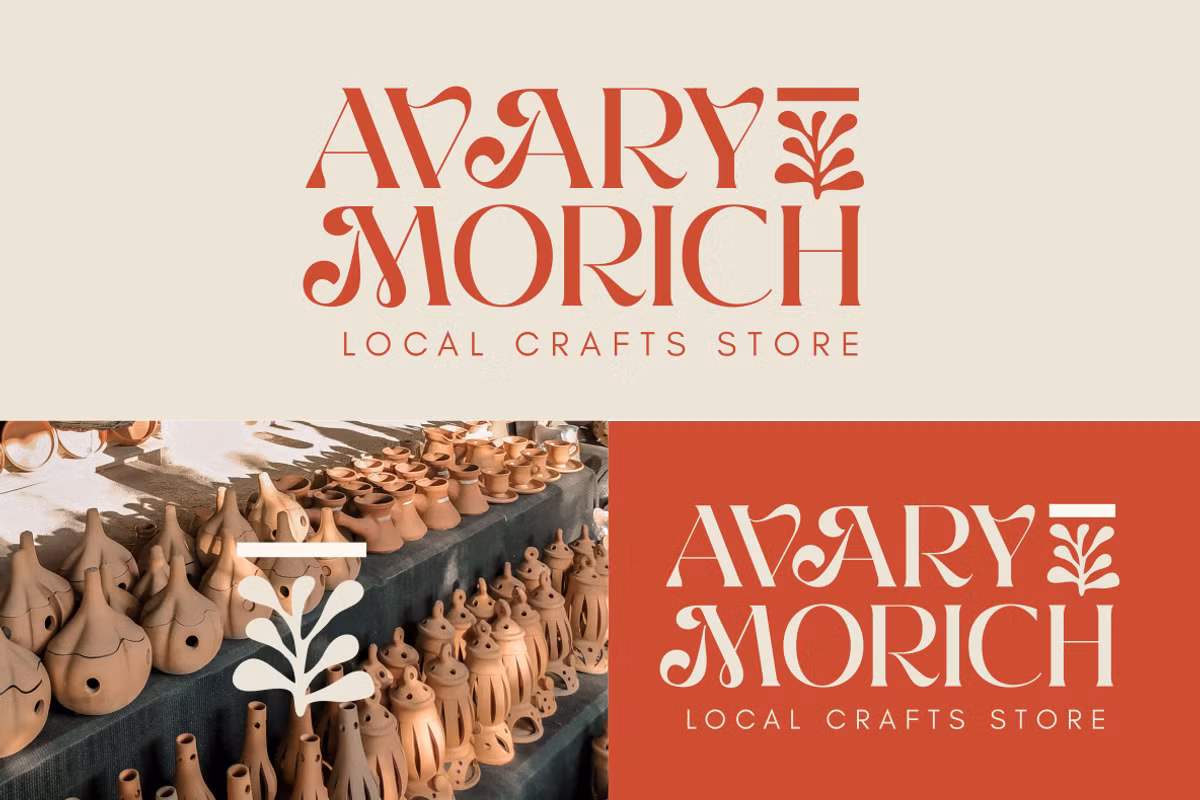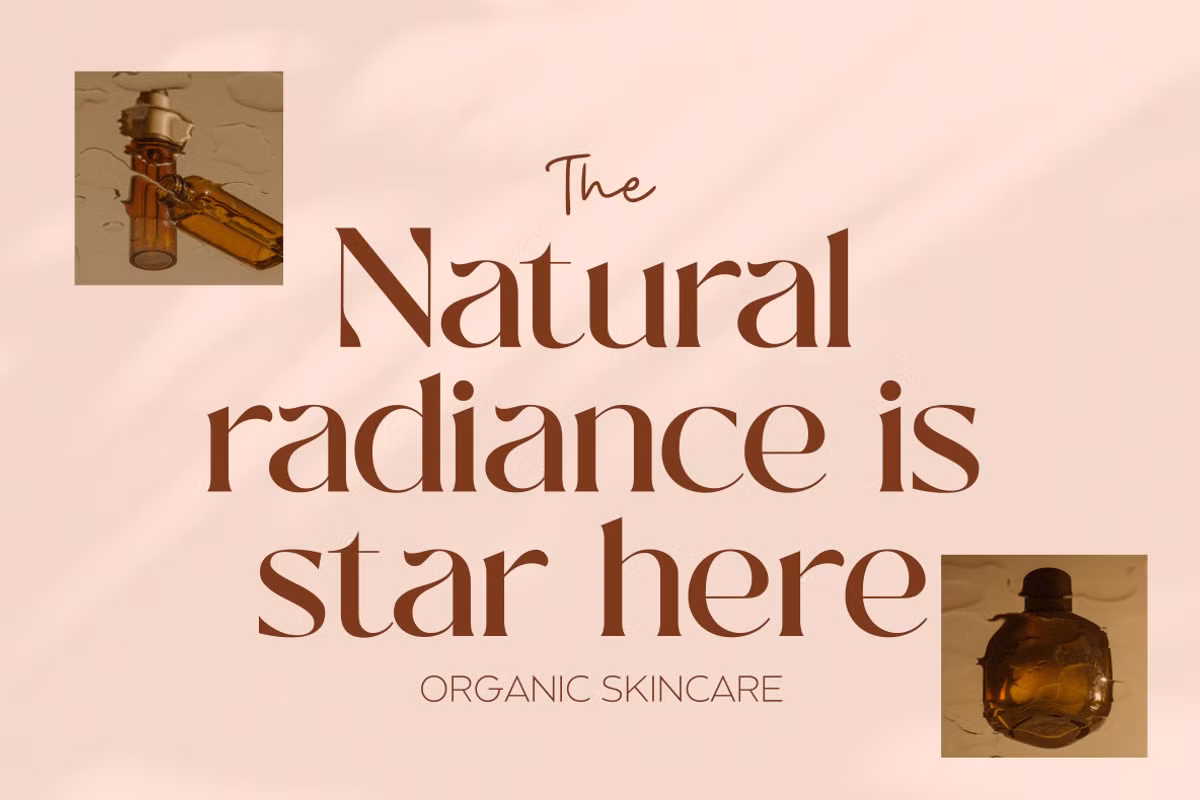
Milky Noire: Luxurious Modern Typeface for Elegant Typography Designs
The Milky Noire font is a really fancy and modern typeface that combines style with a bold look. It’s a great tool for designers who want to create typography that’s expressive, luxurious, and stands out from the crowd. With its beautiful curves, unique serifs, and smooth lines, Milky Noire has a classic yet contemporary feel that makes it perfect for many different design projects.
Whether you’re looking to add some elegance or make a statement, this font is a great choice. Its refined look and bold personality make it ideal for creating eye-catching typography that grabs attention. Overall, Milky Noire is a versatile font that can be used in a variety of ways to add some sophistication and style to your designs.
Design Style and Characteristics
The Milky Noire has a really cool style that’s both fancy and modern. They’ve paid close attention to every detail of each letter, making sure it looks luxurious and expressive. The curves are smooth and the serifs are unique, which adds a bit of class, and the lines are thick and thin in a way that makes them easy to read whether they’re big or small.
This combination of elegance and modernity makes the Milky Noire stand out, giving it a special feel that’s hard to miss. With its refined look, it’s perfect for making a statement, and its clarity means it works well in all sorts of situations.
Character Sets and Glyphs
The Milky Noire font has a lot to offer, with a big set of characters that includes all the basics and some extra flourishes like ligatures. This means you can make your text look really nice and interesting without too much hassle. Plus, it’s got support for lots of different languages, which is super helpful if you’re working on a project that needs to reach people all around the world.
Milky Noire is a great way to make your writing look nice, no matter what language you’re using. It has special features like ligatures that help the letters flow together smoothly, making your text look really elegant.
Use Cases for Milky Noire
The Milky Way’s darker cousin, Milky Noire, is really good at lots of things, which makes it perfect for many different uses. Let’s take a look at some ideas for how to use it.
- Branding: Use Milky Noire for logos and branding materials to convey luxury and elegance.
- Editorial Layouts: Its refined style is perfect for magazines and books that focus on fashion, art, or high-end lifestyle.
- Fashion Campaigns: The typeface is an excellent choice for fashion advertising, where visual appeal is paramount.
- Packaging: Enhance product packaging with Milky Noire to attract attention and convey a sense of quality.
- Social Media Visuals: Create stunning posts and graphics for platforms like Instagram and Pinterest, where aesthetics play a crucial role.
By utilizing Milky Noire in these various contexts, you can ensure that your typography not only captures attention but also communicates the desired brand message effectively.